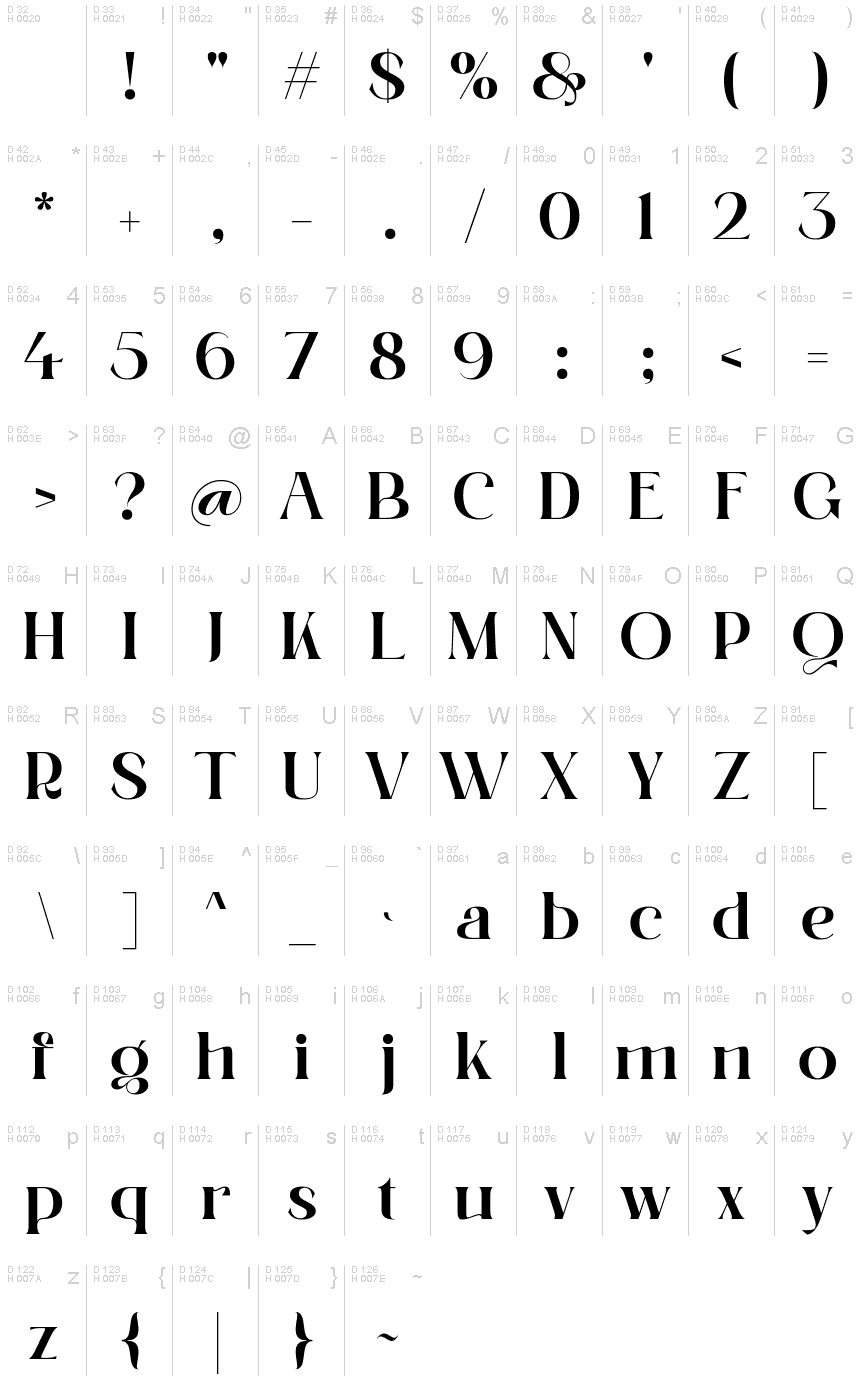
Moldyen Bold
Moldyen Bold is a vintage serif display font created by MJType(Muhamad Junaid). It has a unique character and style that will bring an old-world charm to any project. From logos to posters, Moldyen Bold can give your project a nostalgic feel perfect for making bold statements. This font is ideal for giving a classic touch to brand identities, invitations, labels and packaging designs.